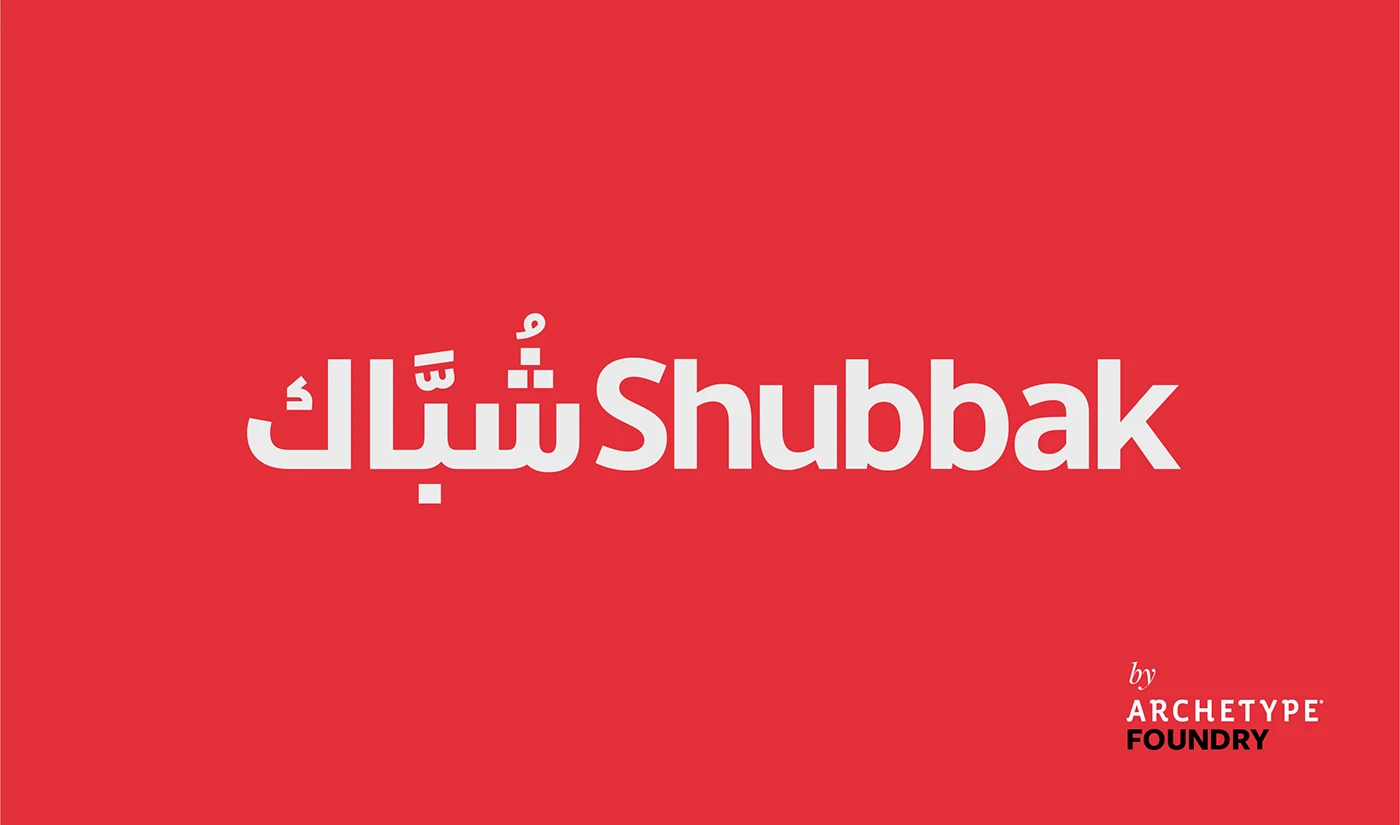
Shubbak Font Family
Shabak—meaning “net” or “network” in Persian—is a thoughtfully crafted typeface that brings together three major Islamic calligraphic traditions in an intricately connected design. With its distinctive interwoven character and refined proportions, this font allows you to create sophisticated projects that flow seamlessly across Persian, Arabic, and Urdu scripts while evoking themes of connection and unity.
Design Characteristics:
- Distinctive, interwoven Persian, Arabic, and Urdu letterforms
- Connected, network-like visual quality
- Balanced proportions for excellent readability
- Sophisticated design with depth and character
- Unique aesthetic with cultural resonance
Persian (Farsi) Script:
- Complete Persian character set
- Full support for Persian-specific characters (گ، چ، پ، ژ)
- Correct representation of Persian numerals
- Proper character connections and positioning
- Distinctive styling across all letters
Arabic Script:
- Coordinated Arabic design matching Persian style
- Complete Arabic character set
- Full support for Arabic diacritics and marks
- Harmonious weight and proportion
- Interwoven character with authentic roots
Urdu Script:
- Proper Urdu character set including specific letters
- Support for Urdu numerals and punctuation
- Correct representation with regional authenticity
- Seamless integration with Persian and Arabic
- Network Branding: Telecom, connectivity, and tech identities
- Cultural Projects: Designs celebrating connection and unity
- Islamic Content: Religious materials with depth
- Multilingual Publishing: Books and publications
- Logos: Memorable, distinctive wordmarks
- Editorial Design: Magazines with unique character
- Packaging: Distinctive product presentation
- Web Design: Unique digital experiences
- Social Media: Engaging, memorable content
- Distinctive Design: Unique interwoven character
- Three Scripts, One Design: Consistent identity across Persian, Arabic, and Urdu
- Comprehensive Support: All characters for all three languages
- Professional Quality: High-caliber font for commercial use
- Thematic Depth: Perfect for projects about connection
- Time-Saving: One font for multiple languages—no mixing required
Key Features of Shabak Font:
- Complete support for Persian (Farsi), Arabic, and Urdu scripts
- Distinctive interwoven design with network-like quality
- Full character sets for each script
- Unique, connected aesthetic
- Perfect for connectivity-themed and cultural projects
Shubbak (شباك) is a new Arabic-Latin typeface by British type foundry Archetype, a company founded by London-based creative agency Archetype Creative. With 8 weights and a dynamic Variable format, this highly versatile font family was designed to work across many different applications.
Originally designed by Ruh Al-Alam and fully developed by Abdelrahman Farahat with earlier contributions from Muhammed Hadi and Mohamed Gaber.